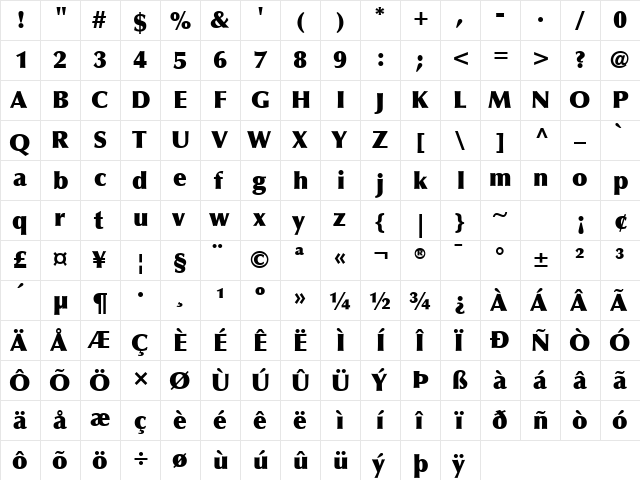
Optima ExtraBlack
Design Context for Optima Typeface
Optima is a composed and adaptable typeface that performs quietly and consistently across a wide range of design contexts.